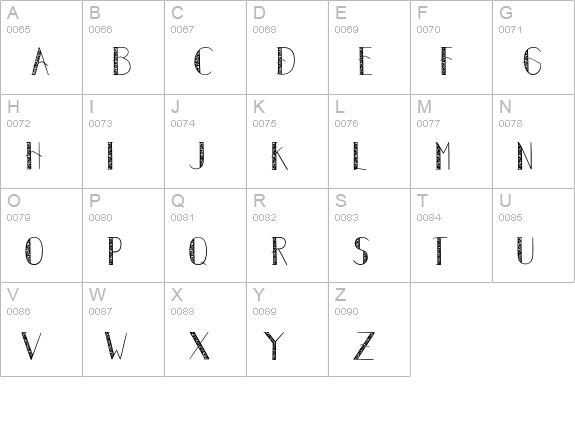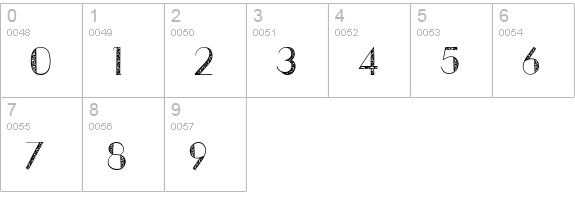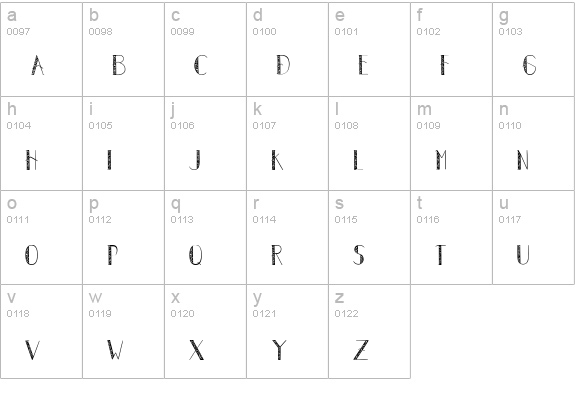
Autumn Leaves Font Details
Autumn Leaves is a free for personal use font in the Fancy > Decorative category, designed by madeDeduk. It has been downloaded 603 times and is available for Windows, Mac and Linux.
Autumn Leaves font is a whimsical and elegant typeface inspired by the beauty of fall foliage. Its delicate strokes and intricate details capture the essence of autumn, making it the perfect choice for projects that require a touch of nature and warmth.
This font is ideal for creating invitations, greeting cards, logos, and more. Its versatility allows it to be used in various design projects, adding a charming and unique flair.